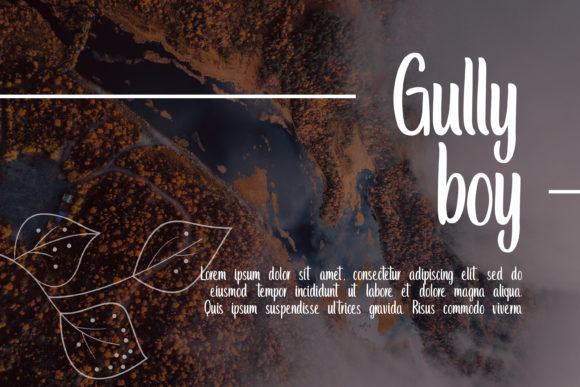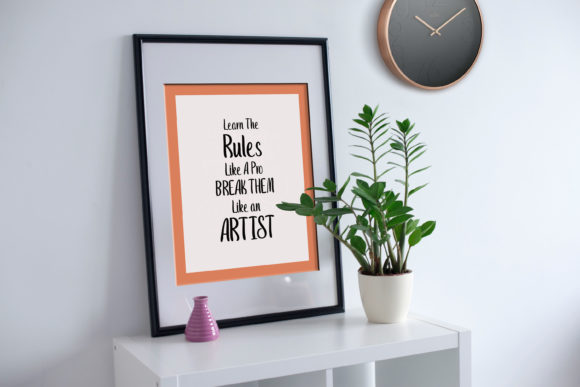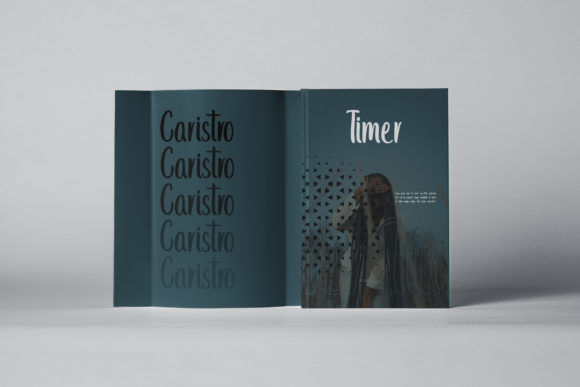
Highland Font
About Highland Font
Highland is a simple, adaptable and well balanced script font. This font was particularly crafted for those who need a beautiful and refreshing look to their designs.